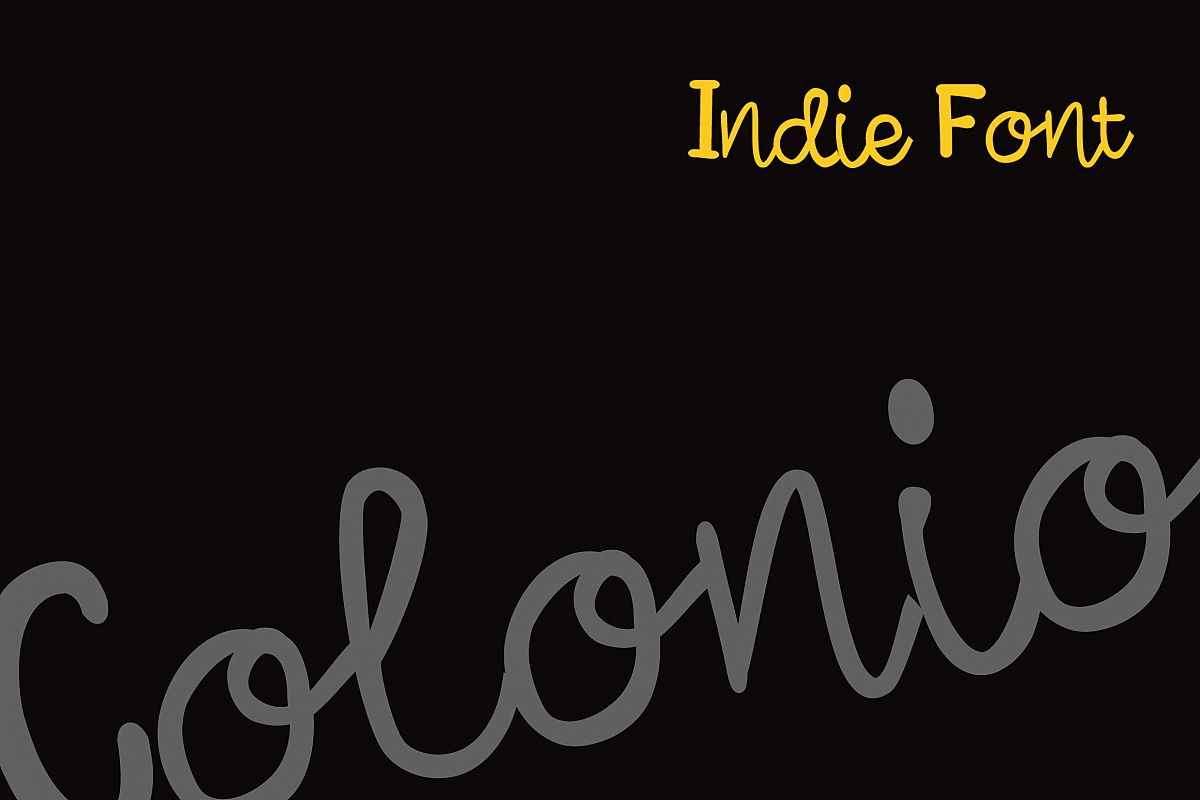
Colonio
COLONIO.
I am pleased to present to you my font. A unique font that looks like Natural Floating handwriting, suitable for your wedding invitations, greeting cards, party invitations, posters, birthday projects and more.
Characters list:
a-z IN LOWER CASE ONLY